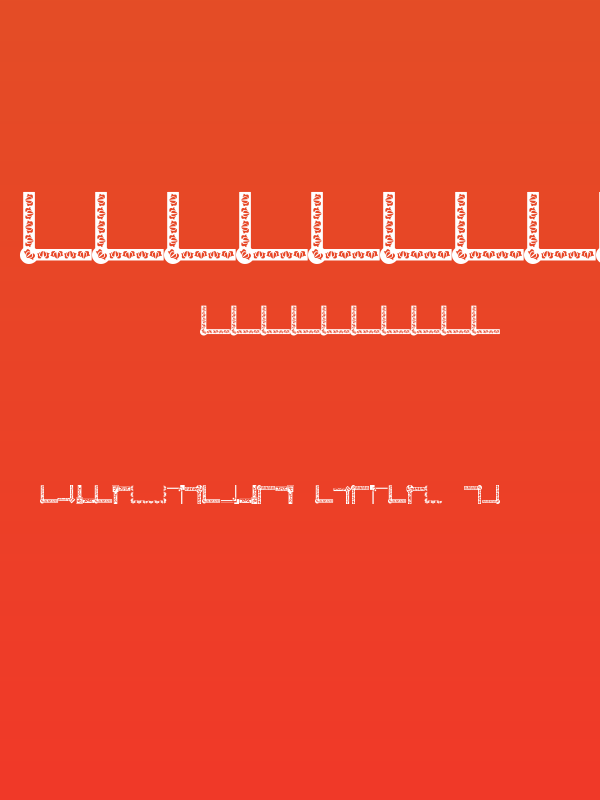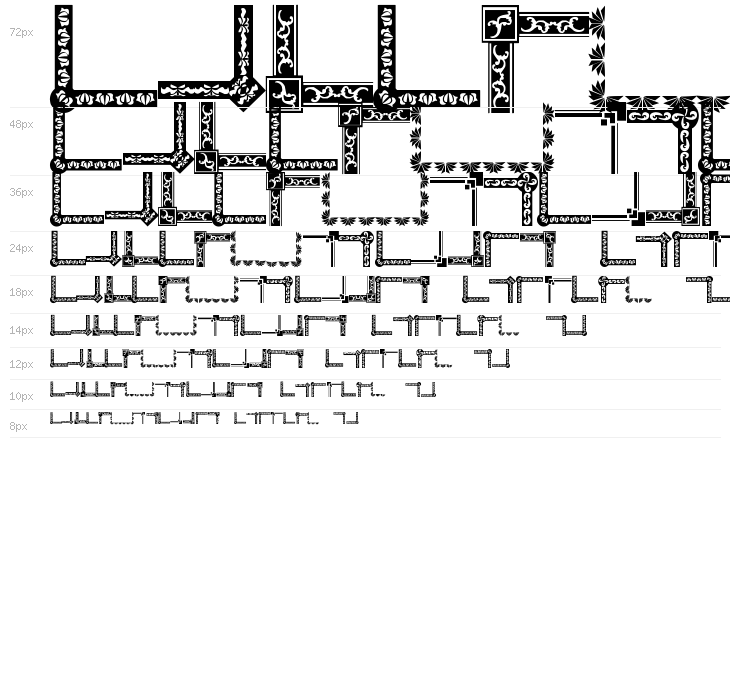
Vintage Decorative Corners 19 Font
Vintage Decorative Corners 19 Description
This design features an intricate series of decorative corners, each adorned with vintage-inspired floral and geometric patterns. The elements are crafted to evoke a sense of elegance and sophistication, reminiscent of classic ornamental designs found in historical manuscripts and architectural details. The corners are uniform in size and style, providing a cohesive look that can be used to frame or highlight various design elements. The intricate detailing within each corner adds a layer of depth and complexity, making them suitable for projects that require a touch of vintage charm.
| Use Case | Decorative elements, Borders, Frames |
| Proposed Projects | These decorative corners are ideal for use in vintage-themed invitations, ornate borders for certificates, decorative frames for artwork, and embellishments in graphic design projects that require a classic touch. |